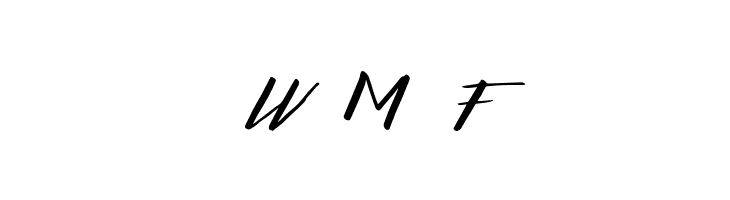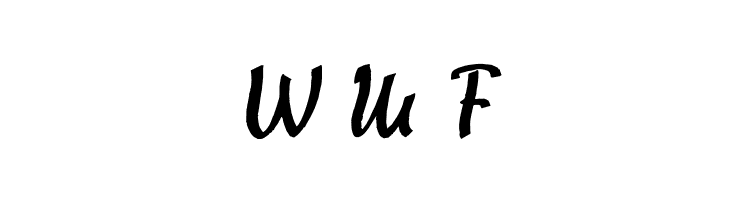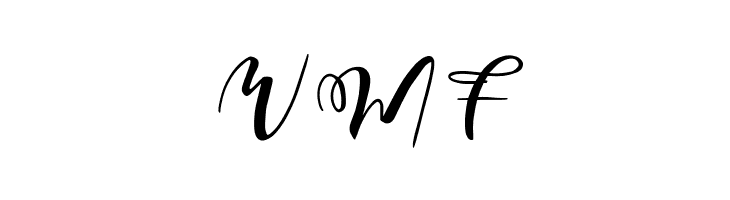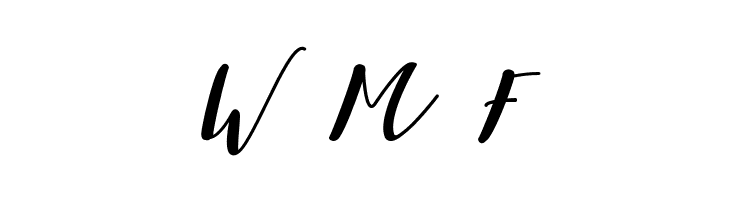
A dynamic, cursive script font with bold, sweeping strokes and elegant curves.
A flowing cursive font with elegant, sweeping curves and fluid connections.
A bold, expressive brush script font with dynamic, sweeping strokes.
A bold, energetic script font with sweeping strokes and dynamic movement.
A dynamic and elegant script font with fluid, sweeping letterforms.
An elegant calligraphy font with fluid, sweeping strokes and dramatic flourishes.
An elegant, cursive font with bold, sweeping uppercase letters and smooth, decorative lowercase characters.
A bold, dynamic script font with sweeping curves and energetic flair.
A bold, brush-style font with dynamic, sweeping strokes and a slanted, energetic appearance.
A flowing, cursive font with elegant, sweeping lines and intricate flourishes.
A flowing, cursive font with elegant, sweeping lines and artistic flair.
A bold, calligraphic symbol with dynamic, sweeping strokes.
A flowing, cursive font with elegant, sweeping strokes and a classic calligraphic style.
A dynamic and fluid handwritten script with elegant, sweeping curves.
A playful, cursive font with bold, sweeping curves and artistic flair.
A flowing, cursive script with elegant, sweeping strokes and a handwritten appearance.
A dynamic, expressive handwritten font with fluid, sweeping strokes.
An elegant and sophisticated cursive font with sweeping curves and delicate flourishes.
A bold, cursive script font with dynamic, sweeping strokes.
A bold, dynamic script font with sweeping curves and high contrast, ideal for vintage or retro designs.
A dynamic, calligraphic font with bold, sweeping strokes and high contrast.
A dynamic, cursive script font with bold, sweeping strokes and high contrast.
A bold, dynamic script font with sweeping curves and strong presence.
A dynamic calligraphic font with expressive, sweeping strokes and elegant character shapes.
A flowing, cursive script font with elegant, sweeping strokes.
A dynamic and flowing script font with elegant, sweeping strokes.
A flowing, cursive font with elegant, sweeping strokes and a dynamic appearance.
A dynamic and expressive script font with fluid, sweeping strokes.
A flowing, cursive script font with elegant, sweeping strokes.
A flowing, elegant script font with bold, sweeping uppercase and smooth, slanted lowercase letters.
A flowing, cursive font with elegant, sweeping strokes.